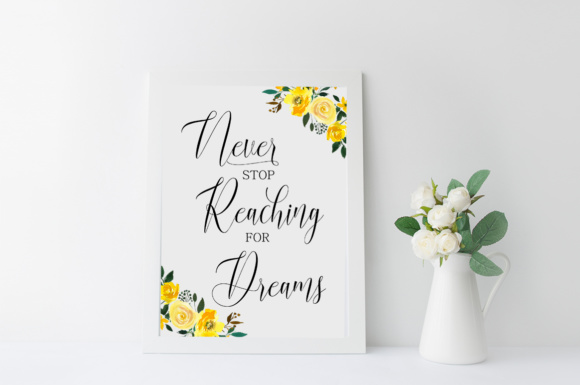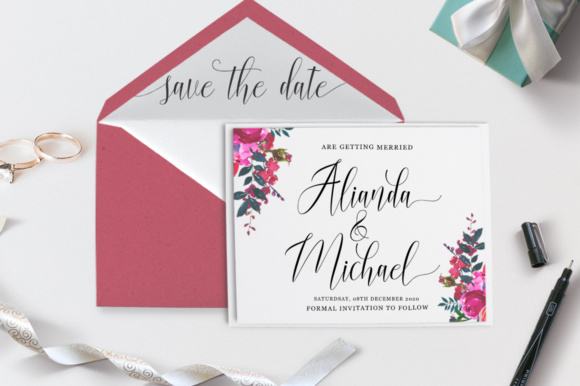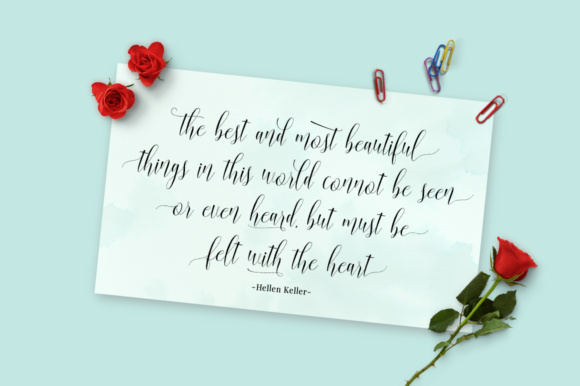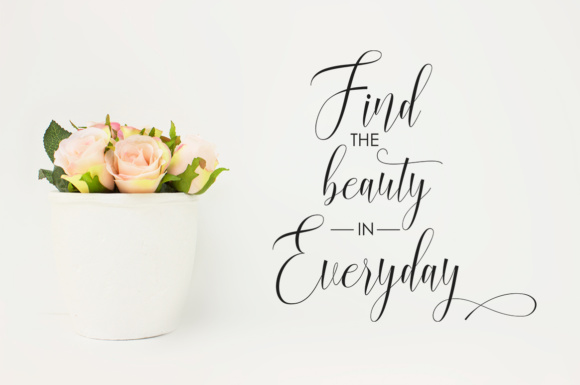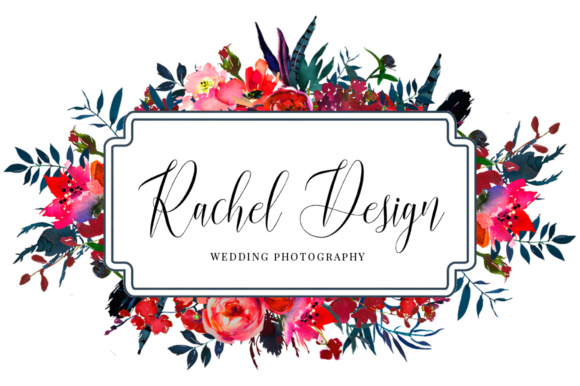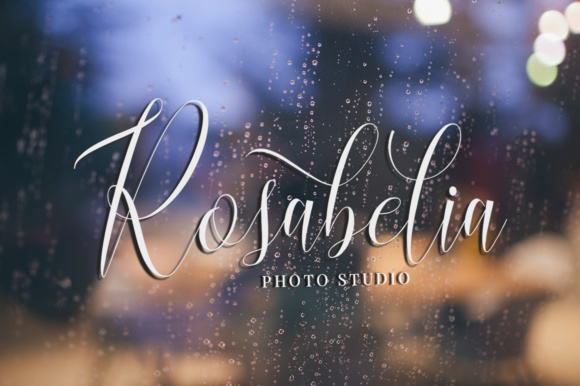
Unlocking the Art of Modern Calligraphy
Do you remember the feeling of discovering a new font that sparks your creativity? For designers, it’s a moment that can transform a project from ordinary to extraordinary. The thrill of exploring different styles, testing new typography, and bringing a unique vision to life is what drives us to keep pushing the boundaries of design. And for those who crave that special something, we’re excited to introduce the Blussafir Script Font – a modern calligraphy script that’s about to become your new favorite.
This beautiful script font is designed to add a touch of elegance and sophistication to any project. Whether you’re working on a branding project, creating a wedding invitation, or crafting a newsletter, Blussafir Script Font is the perfect tool to help you convey your message with style and flair. For designers, this font is a valuable addition to their toolkit, offering a unique and versatile way to express their creativity and bring their ideas to life.
Blussafir Script Font Key Features
- Font Family: Blussafir Script, a beautiful and elegant script font.
- Unique Characteristics: Features a unique blend of elegance and sophistication, with flowing connections and subtle flourishes.
Blussafir Script Font Review
As a designer, I was excited to dive into the Blussafir Script Font and see if it lived up to its promises. ✨ First impressions were great – the font has a beautiful, elegant feel that’s perfect for creative projects. The script style is well-executed, with smooth connections between letters and a nice flow to the overall design.
One of the standout features of Blussafir is its versatility. ✨ It’s suitable for a wide range of applications, from wedding invitations and event branding to product packaging and advertising. The font is also highly customizable, with a range of OpenType features that allow for advanced typography and effects.
However, there are a few limitations to consider. ⚠️ The font is not as bold or dramatic as some other script fonts on the market, which may be a drawback for designers who are looking for a more eye-catching option. Additionally, some of the characters may be difficult to read at smaller font sizes.
- Beautiful, elegant script style
- Smooth connections between letters
- Highly customizable with OpenType features
- Suitable for a wide range of applications
- May lack boldness or drama for some designers
- Some characters may be difficult to read at smaller font sizes
Overall, I’d say that Blussafir Script Font is a solid choice for designers who are looking for a elegant, versatile script font. While it may not be the most dramatic option, it’s a great choice for a wide range of applications and is highly customizable.
Getting the Most Out of Blussafir Script Font
To get the most out of Blussafir Script Font, use it for titles, headings, and other text elements that require a elegant and sophisticated look. Experiment with different font sizes, colors, and styles to create a unique design.
The Blussafir Script Font is ideal for:
- Stationery and business cards
- Editorials and fashion publications
Alternatives to Blussafir Script Font
Great Vibes is a beautiful, elegant script font that is perfect for creating a sophisticated and luxurious feel. It is ideal for use in branding, packaging, and advertising materials where a touch of elegance is required.
Great Vibes is similar to Blussafir Script Font in its flowing, handwritten style, but has a more refined and polished look. It is a great choice for designers who want to create a high-end feel without being too over-the-top.
Anton
Anton is a modern script font that is perfect for creating a bold and eye-catching design. It is ideal for use in titles, headings, and other areas where a strong visual impact is required.
Anton is different from Blussafir Script Font in its more dramatic and dynamic feel. While Blussafir is elegant and refined, Anton is more energetic and playful. Anton is a great choice for designers who want to create a modern and edgy look.